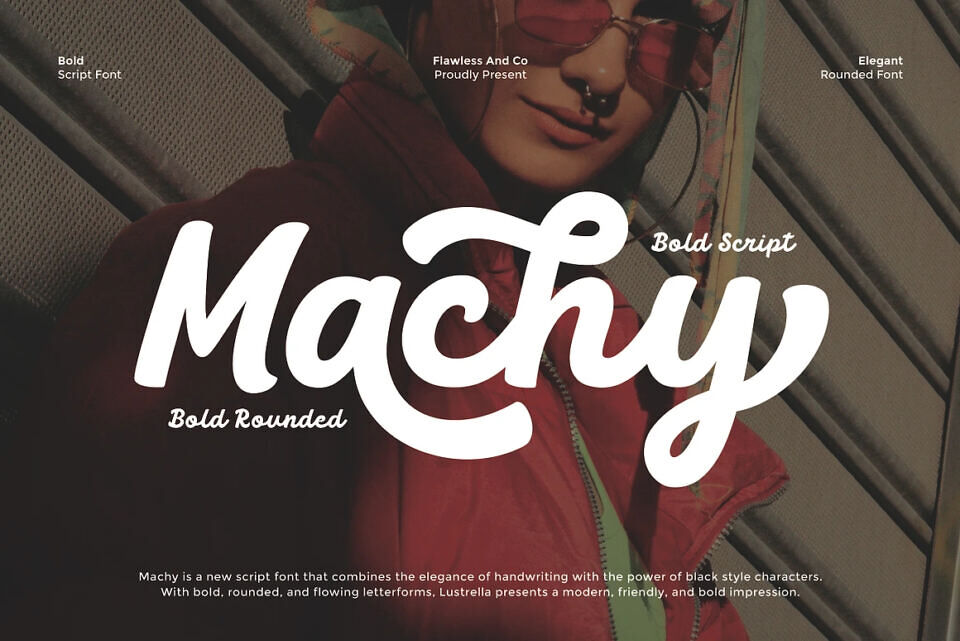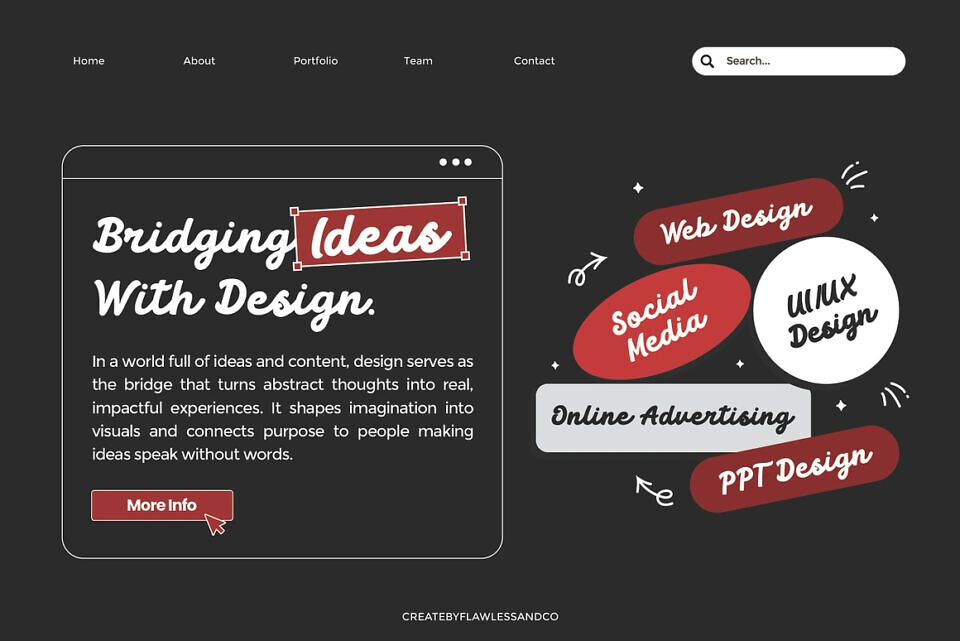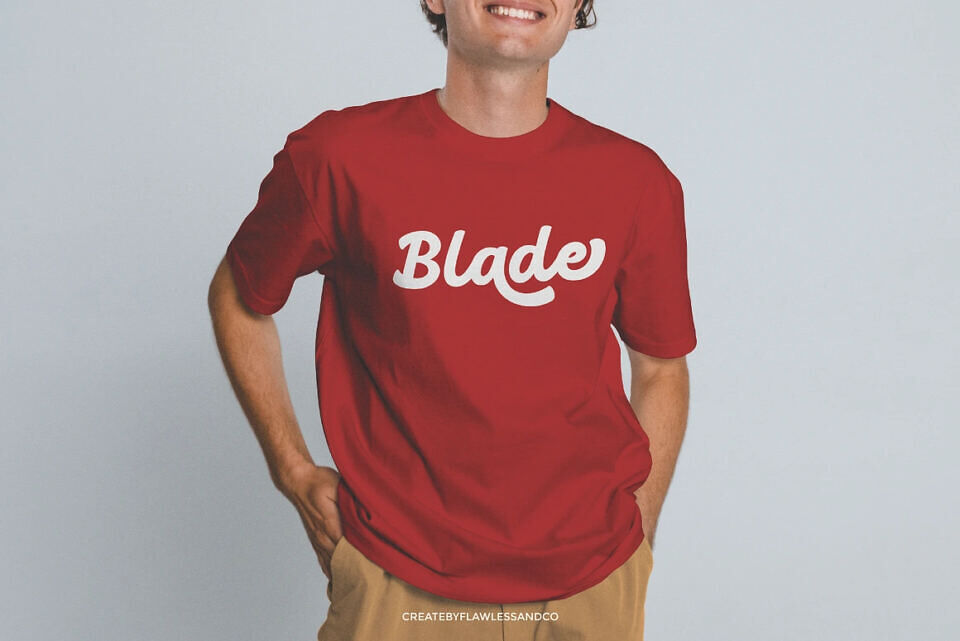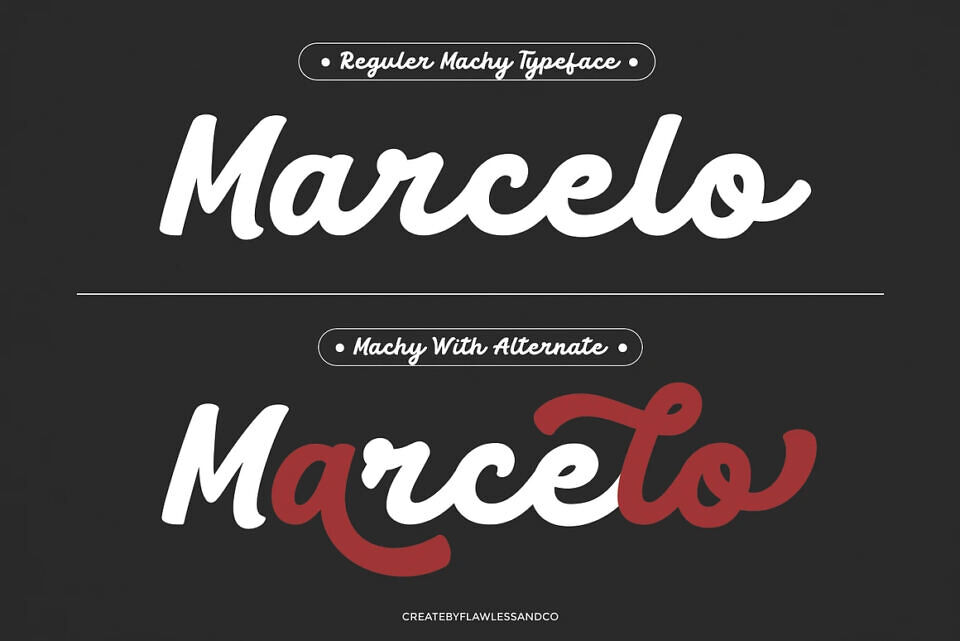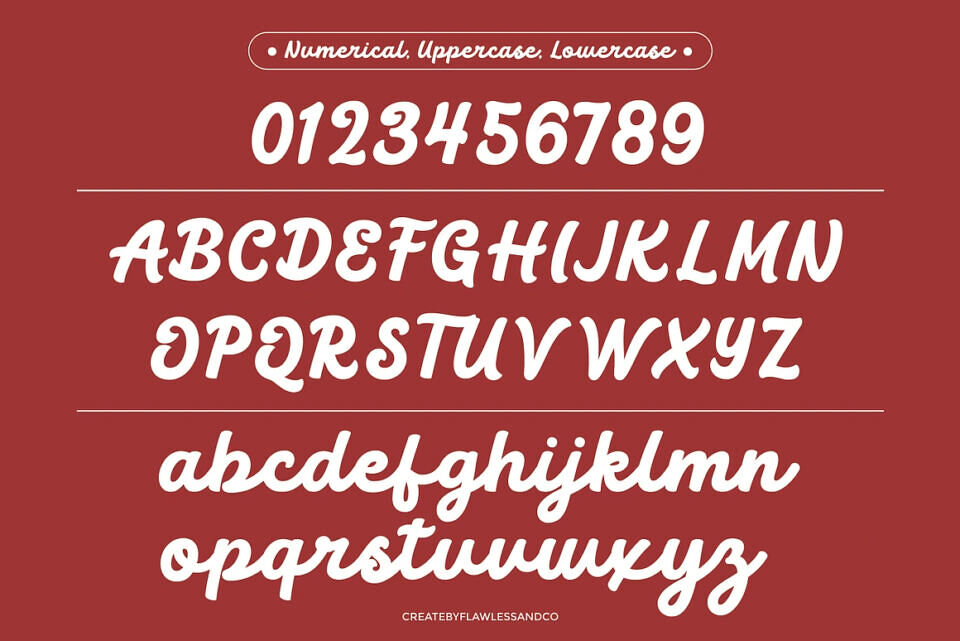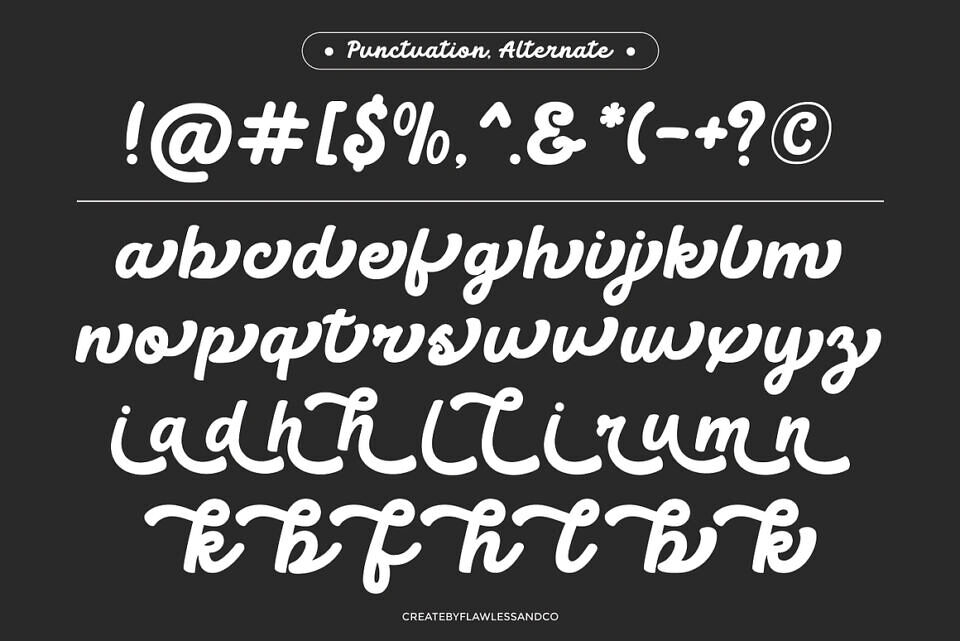
Machy Font
Machy is a bold script font that blends strength with smooth, flowing curves. Designed to exude confidence and personality, it offers a handcrafted feel while maintaining a modern edge. The bold weight ensures high visibility, while the script style adds elegance and charm—making it perfect for designs that need both impact and style.
Machy is perfect for designers, brand creators, and business owners who want to combine bold impact with a stylish, handcrafted touch. It’s ideal for anyone looking to make their brand, logo, or product design stand out with personality and confidence.